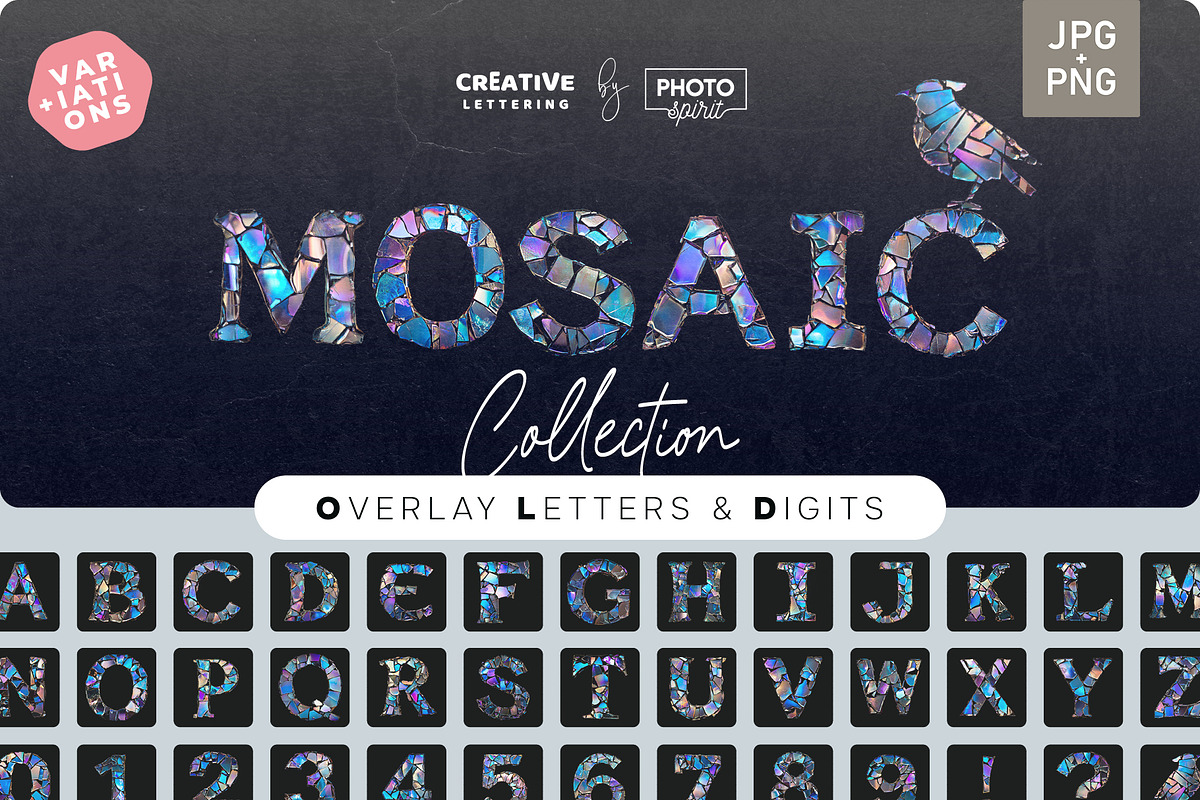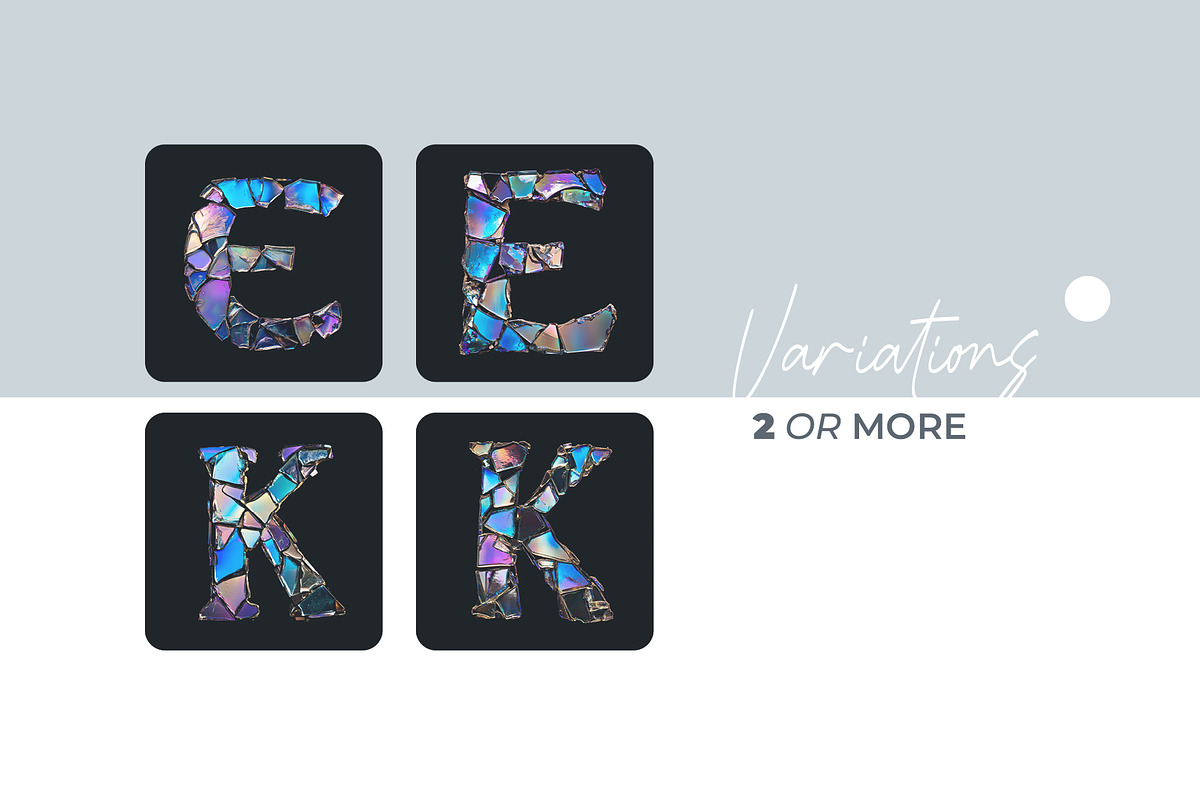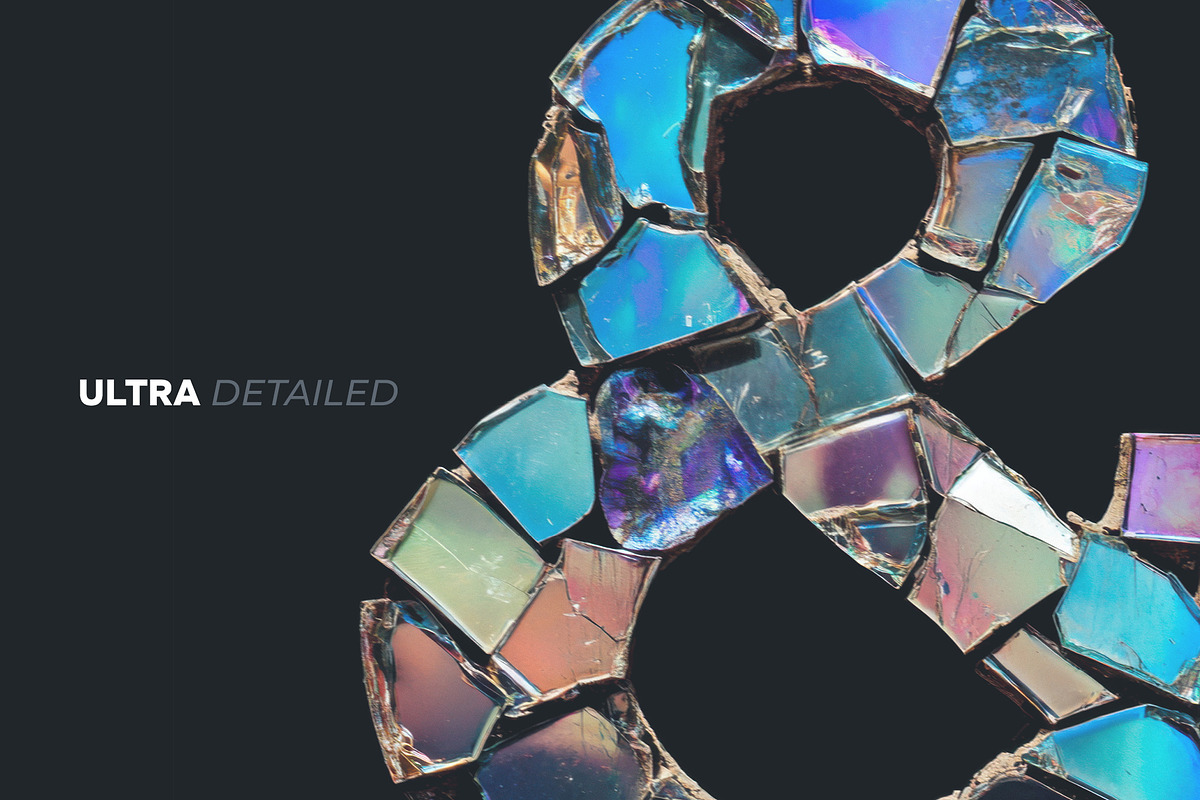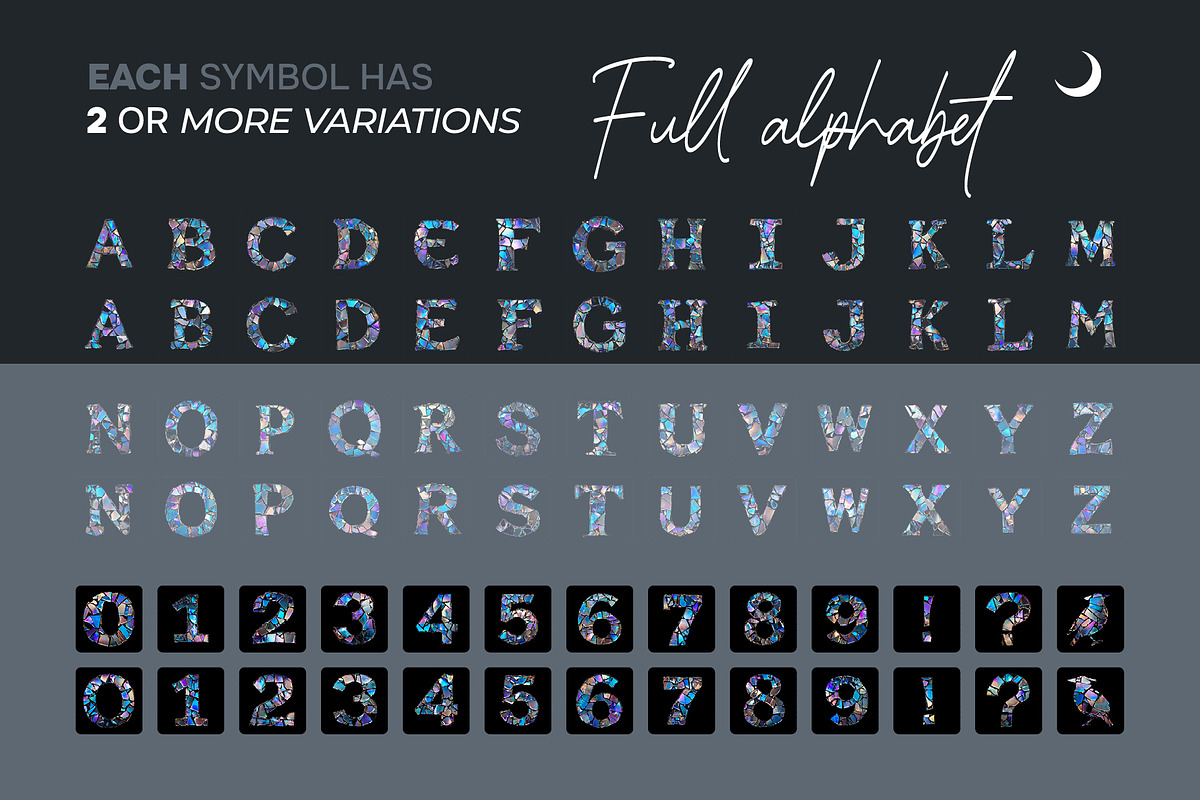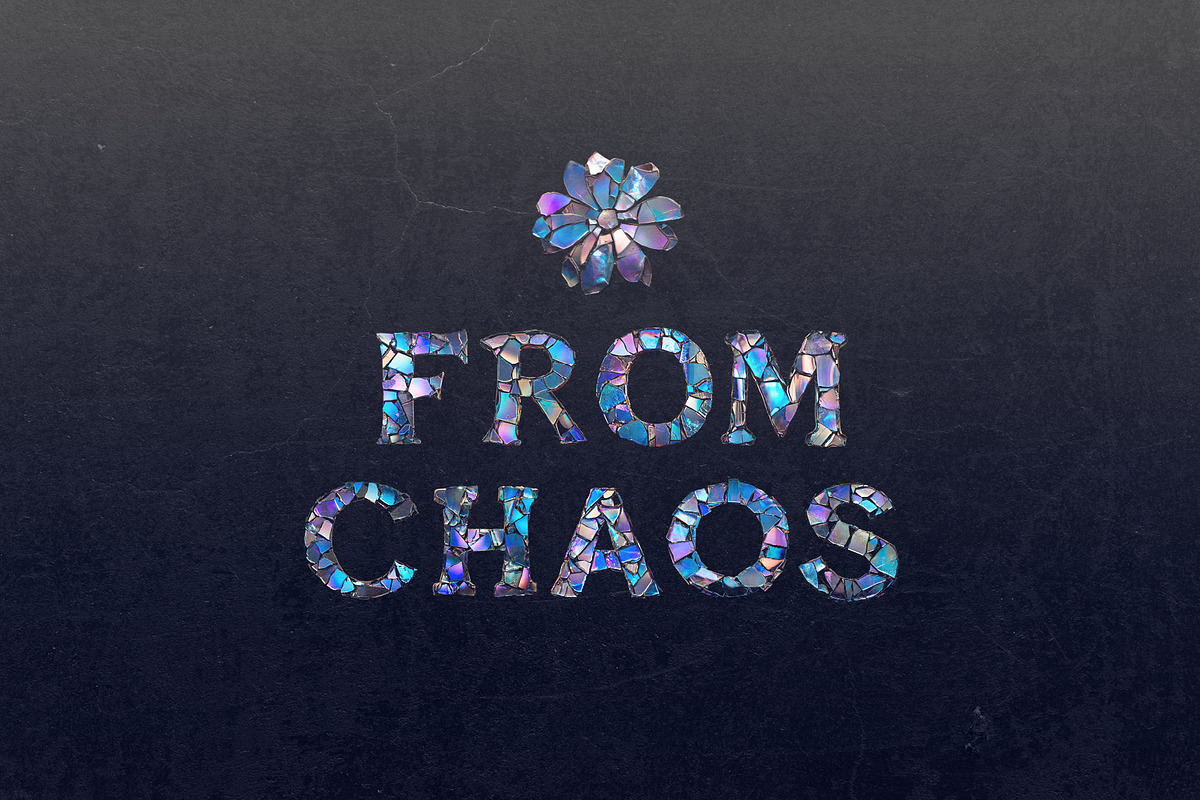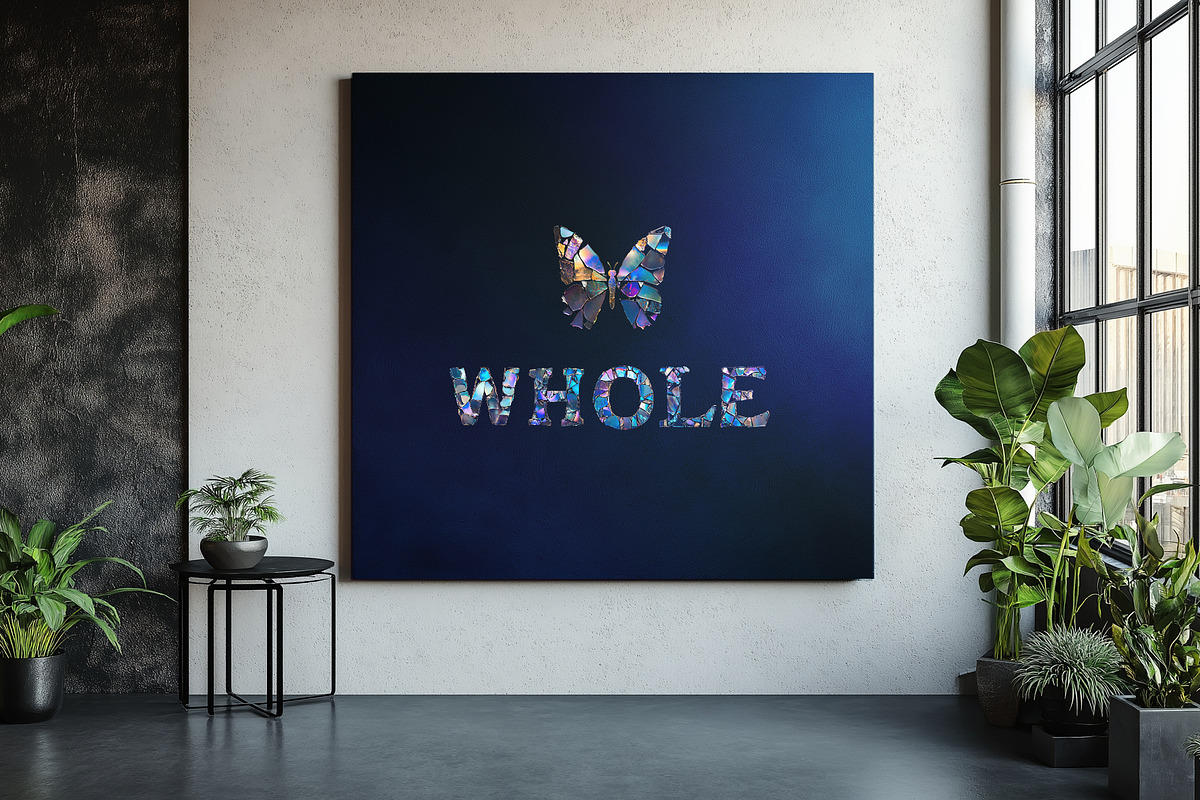
Nacre Glass Mosaic Letter Overlays
Add a Touch of Iridescent Beauty with Nacre Broken Glass Mosaic Letters Overlays
Elevate your creative projects with Nacre Broken Glass Mosaic Letters Overlays , a stunning collection of alphabet overlays that combine the shimmering elegance of nacre (mother-of-pearl) with the dramatic allure of broken glass mosaics. Designed to evoke luxury, sophistication, and artistic flair, these overlays are perfect for projects that demand a unique, eye-catching, and high-end aesthetic.
Whether you're working on branding materials, luxury-themed designs, or any project that calls for a touch of opulence and texture, this set delivers a realistic mosaic effect that adds depth, dimension, and a touch of magic to your compositions. Each letter is meticulously crafted as an overlay, capturing the iridescent glow and jagged beauty of fractured glass infused with the natural luster of nacre.
✅ Complete Alphabet & Symbols – Includes uppercase letters, numbers, and a selection of essential symbols for added versatility.
✅ Multiple Mosaic Variations – 2–5 unique styles per letter for diverse and dynamic designs.
✅ Iridescent & Luxurious Design – Adds a shimmering, high-end feel to your projects.
Bring the shimmering allure of Nacre Broken Glass Mosaic Letters Overlays to your designs and let your creativity shine with iridescence and elegance! ✨